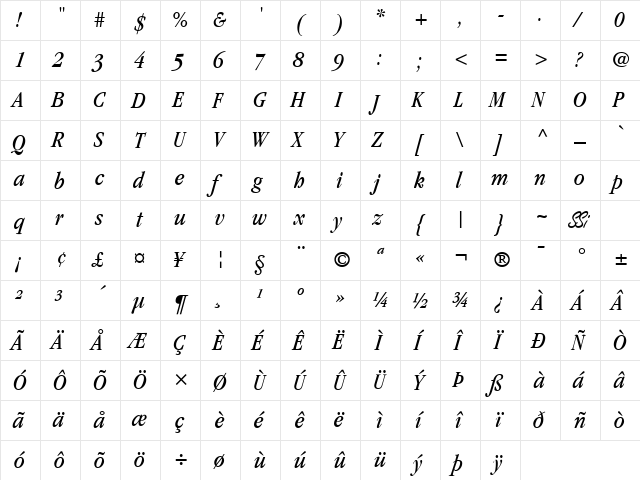
Garamond Condensed SSi Book Condensed Italic Font Preview
Design Context for Garamond Condensed SSi Typeface
Garamond Condensed SSi takes a measured approach to typography — its balanced proportions and neutral character make it a reliable workhorse for both digital and print work. The dynamic lean of this cut emphasises speed and emphasis in any layout. Its narrow stance lets it pack a punch even in space-constrained designs.
Pro Tip: Try Garamond Condensed SSi for annotation and caption copy alongside an upright companion — the contrast in angle creates a dynamic but ordered typographic system.